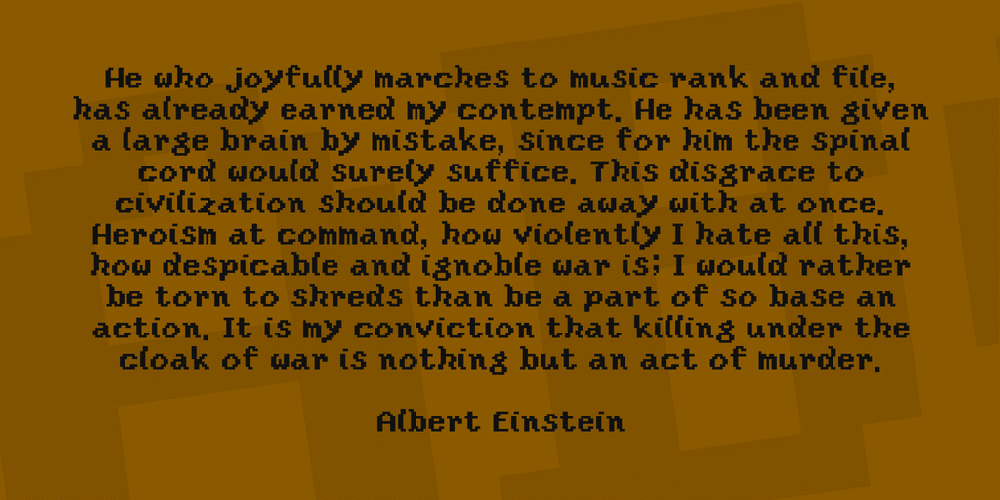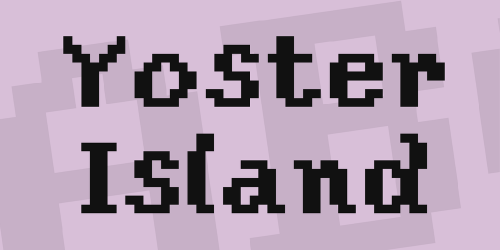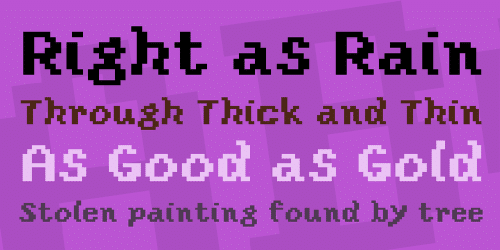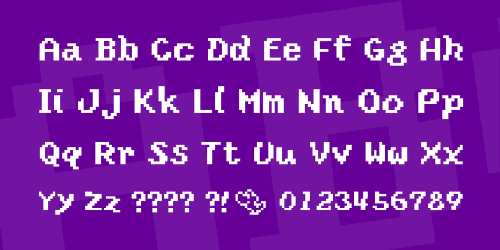
Ever want to use that rather cartoonish screen font from Yoshi’s Island in your Flash animations, Photoshopped images, or printed publications? Probably not. Still, here it is anyway. ::grin::